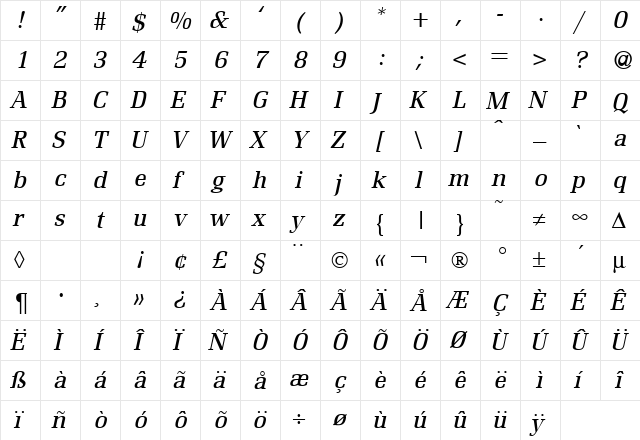
Renowned RegularItalic
Design Context for Renowned Typeface
Renowned is a composed and adaptable typeface that performs quietly and consistently across a wide range of design contexts. The dynamic lean of this cut emphasises speed and emphasis in any layout.
Pro Tip: Try Renowned for annotation and caption copy alongside an upright companion — the contrast in angle creates a dynamic but ordered typographic system.